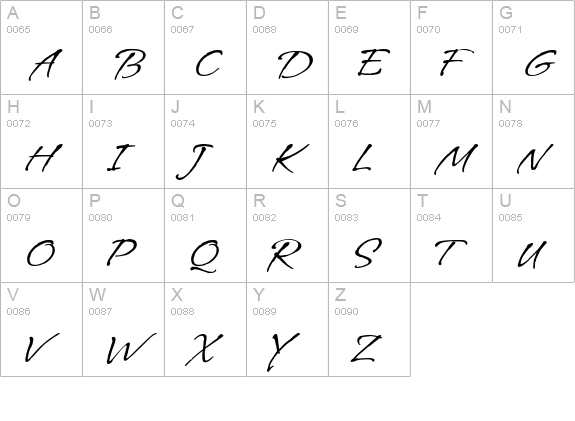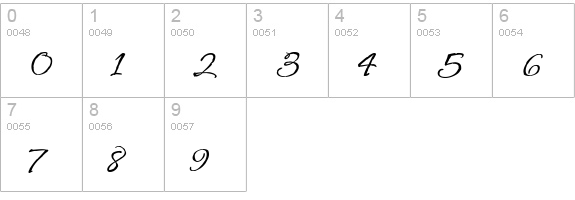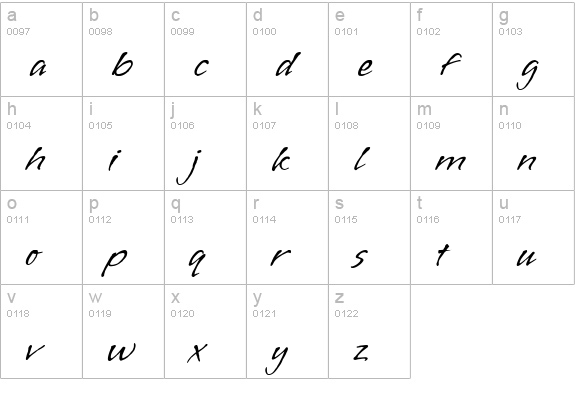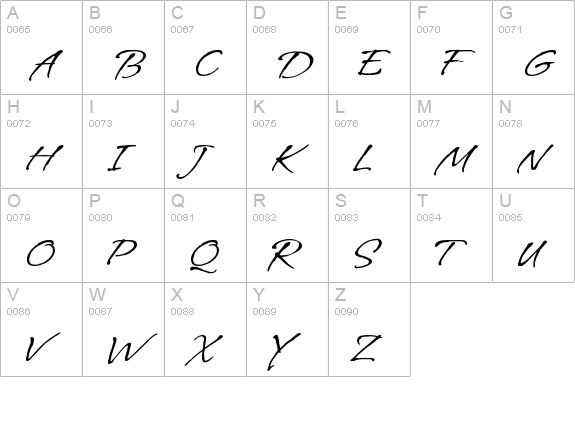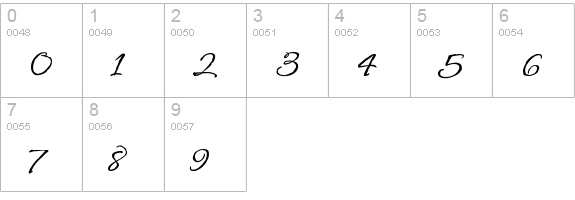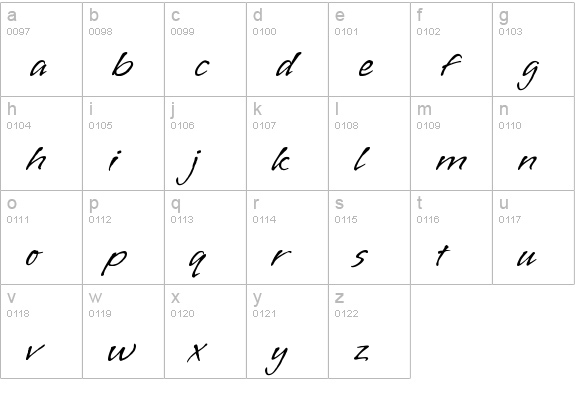
Vujahday Plain Font Details
Introducing Vujahday Plain font, a sleek and versatile typeface that effortlessly combines elegance and simplicity. With its clean lines and smooth curves, this font exudes a sense of modern sophistication, making it perfect for a wide range of design projects. Vujahday Plain font offers a harmonious balance between legibility and style, making it ideal for both headings and body text. Its minimalist design ensures readability across various sizes, from large headlines to small paragraphs. The even spacing between letters ensures a pleasant reading experience, while its timeless appeal adds a touch of timeless elegance to any project. One of the best features of Vujahday Plain font is that it is available for free! Yes, you heard it right. You can freely download this font at FontsMarket.com, a trusted source for high-quality fonts. This means that you can add a touch of sophistication to your designs without breaking the bank. Whether you're working on a branding project, designing a website, or creating eye-catching social media graphics, Vujahday Plain font is sure to elevate your work to new heights. Its versatility allows it to seamlessly adapt to various design styles, from modern and minimalistic to classic and refined. With Vujahday Plain font, you can unleash your creativity and bring your design visions to life. Its clean and timeless aesthetic will ensure that your work stands out from the crowd. So why wait? Download Vujahday Plain font for free at FontsMarket.com and take your designs to the next level.